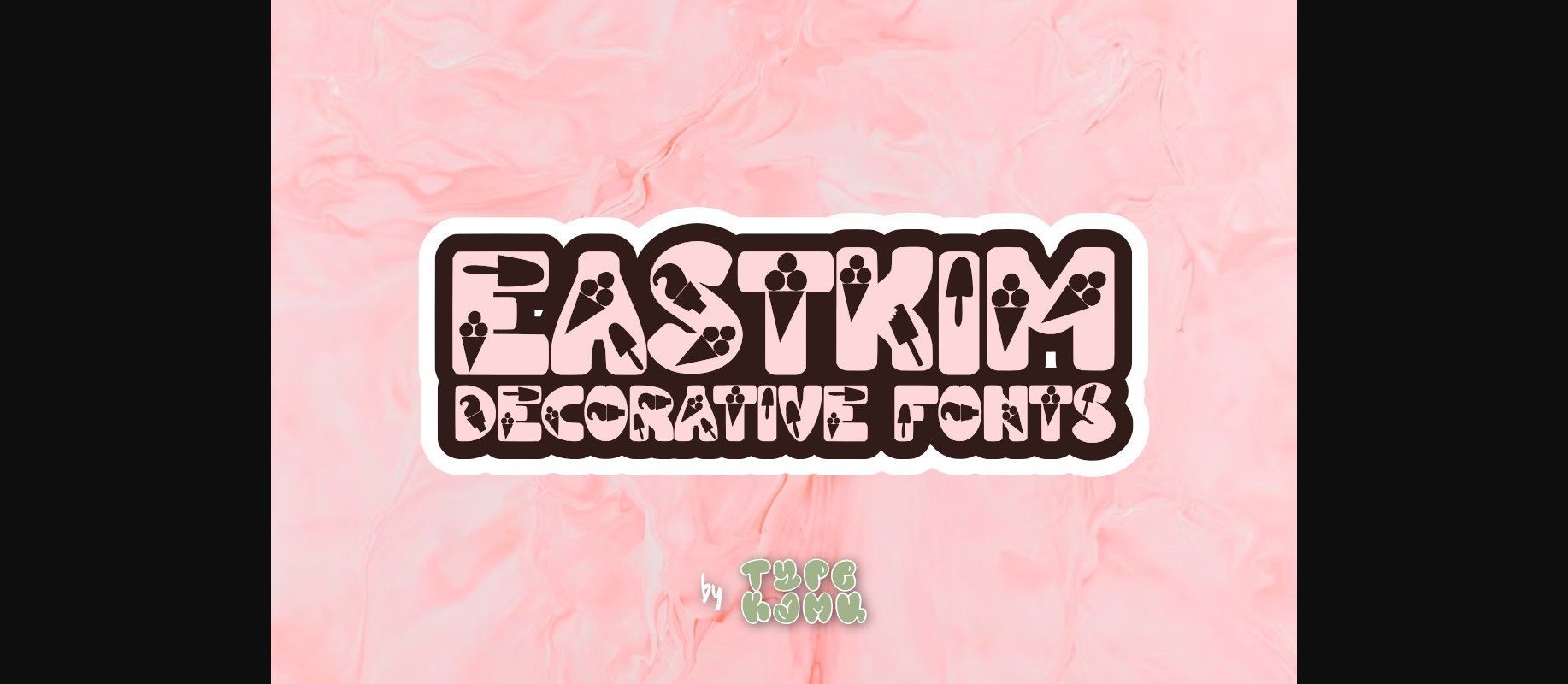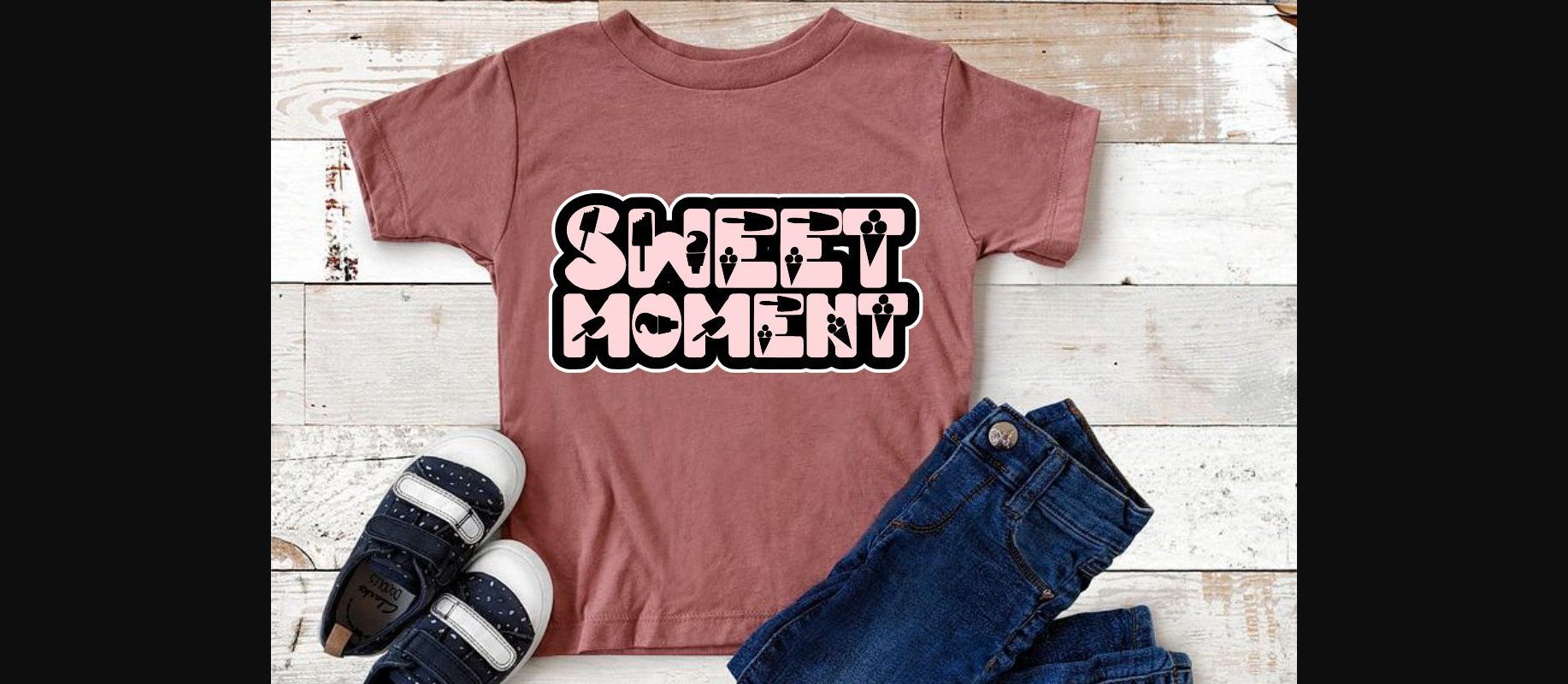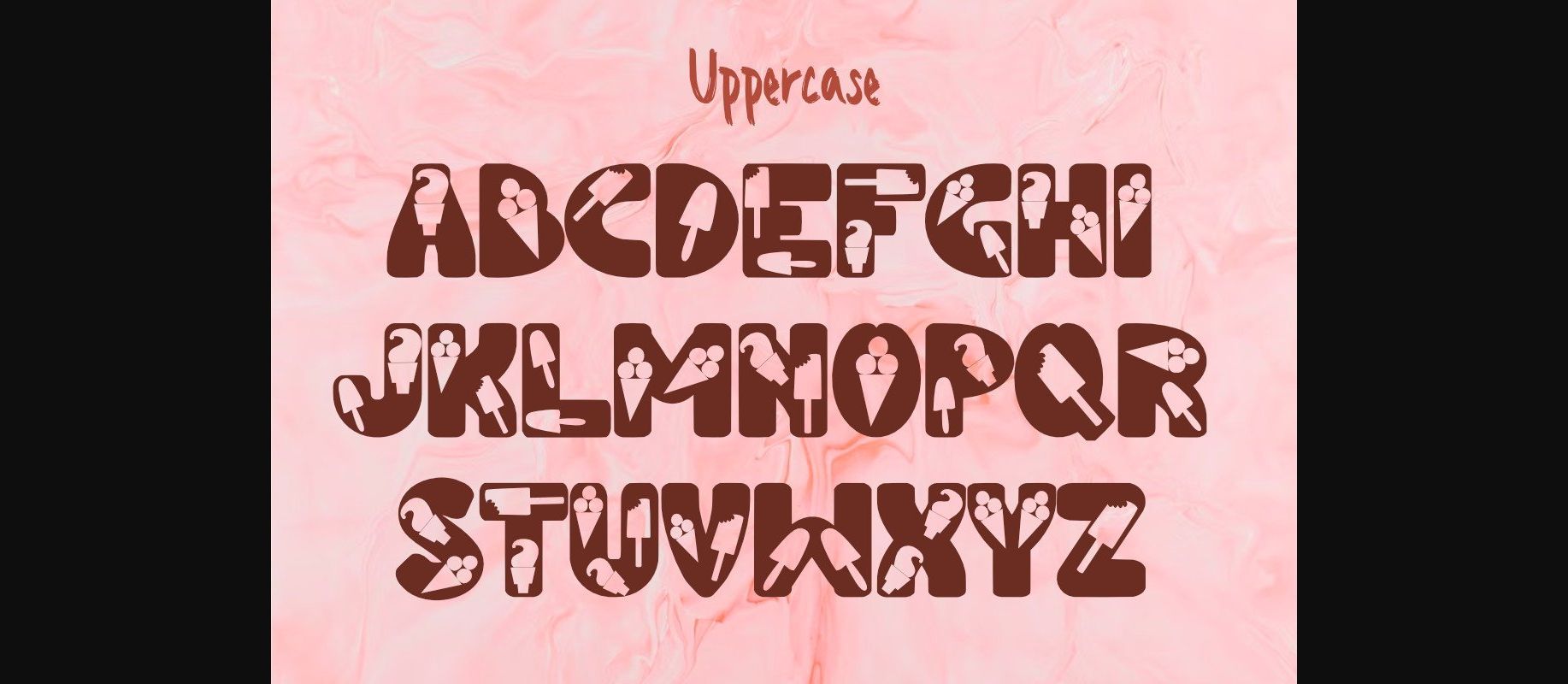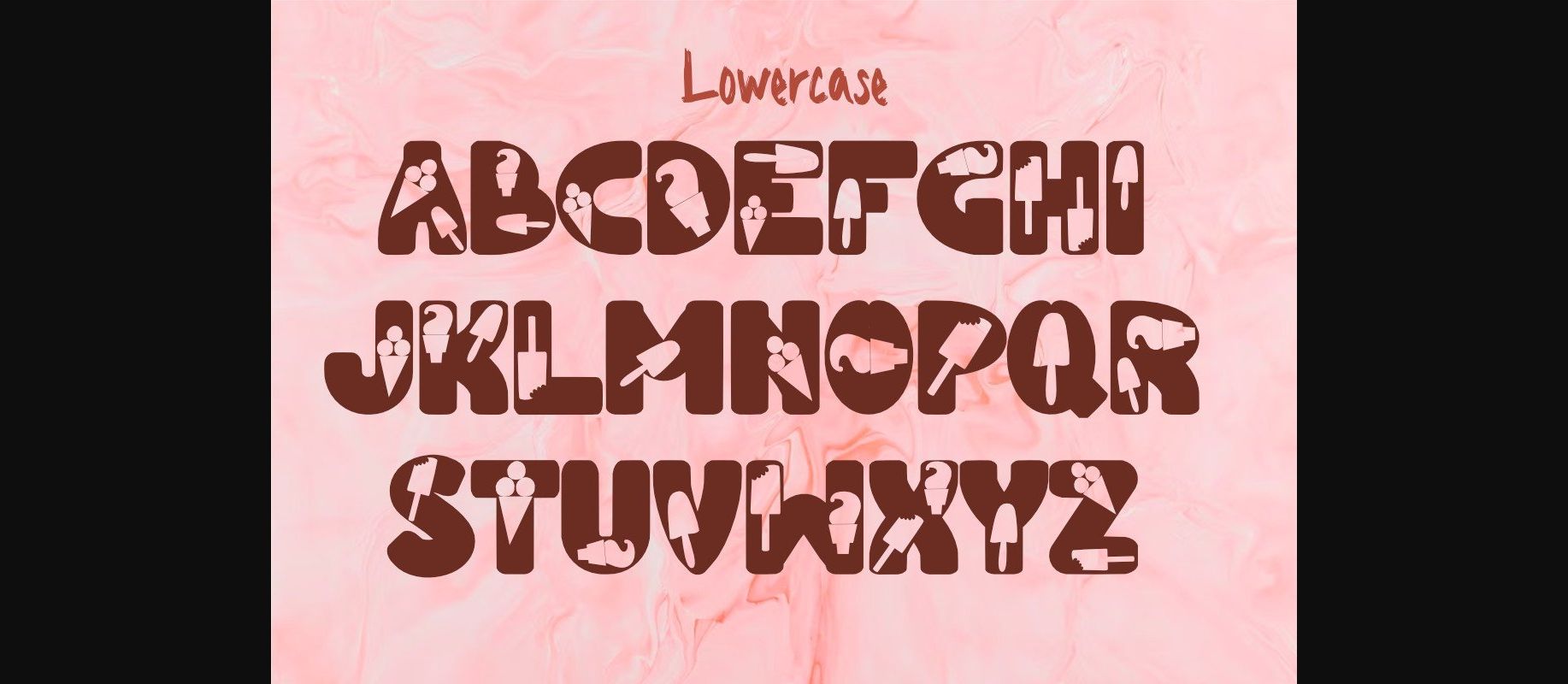
About Eastkim Font
Eastkim is a decorative font with a cute and fun ice cream doodle theme. This font is perfect for printing needs such as t-shirts, mugs, tumblers, book covers, posters, and many other creative ideas.